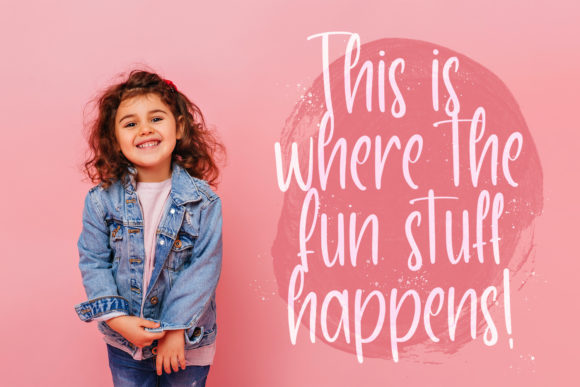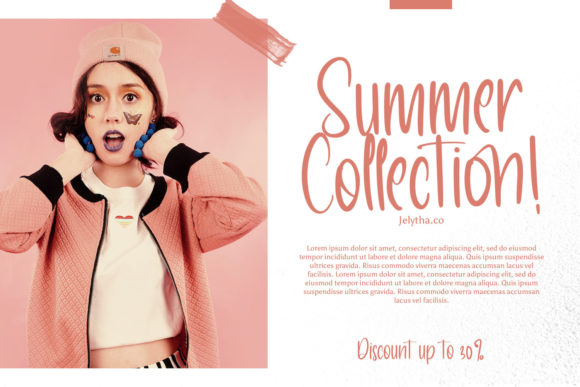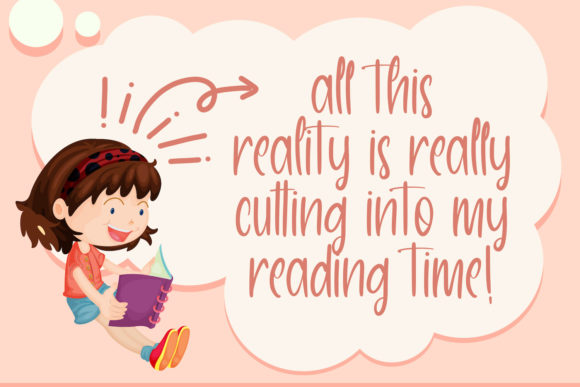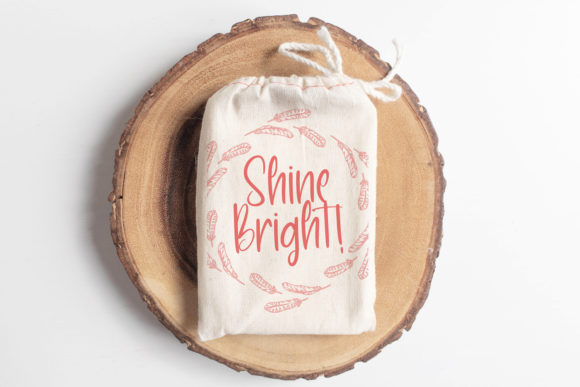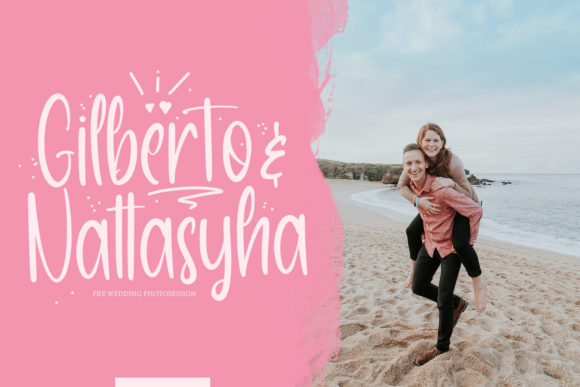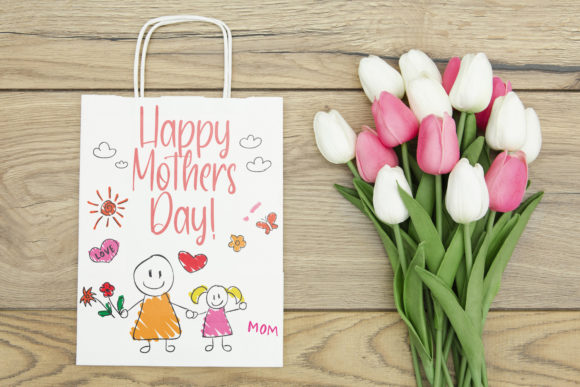
Bring Your Creative Ideas to Life with Aston Sofianty Font
Have you ever sat at your desk, staring at a blank page, waiting for inspiration to strike? That’s exactly where the magic happens. As a designer, you know that the right font can make all the difference in bringing your ideas to life. That’s why we’re excited to introduce you to the Aston Sofianty Font, a sweet and flexible handwritten font that’s sure to capture the essence of your creativity.
This beautiful font is perfect for designers who want to add a touch of warmth and romance to their projects. With its endless variations, you’ll have a blast exploring the different possibilities and creating unique works of art. Whether you’re working on a wedding invitation, a blog post, or a social media campaign, Aston Sofianty Font is the perfect companion to help you turn your ideas into stunning visual masterpieces.
Aston Sofianty Font Key Features
- Font Family: Aston Sofianty, a unique and elegant script font designed for formal and creative purposes.
- Character Set: Supports a wide range of languages, including Latin, Cyrillic, and Greek alphabets, with over 500 glyphs.
- Unique Characteristics: Features intricate connections, subtle flair, and ornate details, making it perfect for invitations, wedding stationery, and luxury branding.
Aston Sofianty Font Review
I recently had the chance to work with the Aston Sofianty font, and I must say it’s a unique addition to any design project. ✨ The font’s modern, sophisticated look is perfect for creating a high-end feel. The clean lines and elegant curves make it an excellent choice for luxury brands, fashion, and corporate designs.
- ✨ Elegant and sophisticated design makes it perfect for high-end brands
- ✨ Wide range of font weights and styles available, including light, regular, medium, bold, and extra bold
- ✨ Supports various languages, including Latin, Cyrillic, and Greek alphabets
However, there are some limitations to consider. ⚠️ The font may not be the best choice for casual, playful designs, as it can come across as too formal. Additionally, some users may find the font too thin, especially at smaller sizes. ⚠️ The font’s lack of italic and oblique styles can also be a limitation for designers who need to create emphasis or contrast in their designs.
Overall, I think the Aston Sofianty font is a great addition to any designer’s toolkit. While it may not be the best choice for every project, it’s an excellent option for high-end designs where sophistication and elegance are key.